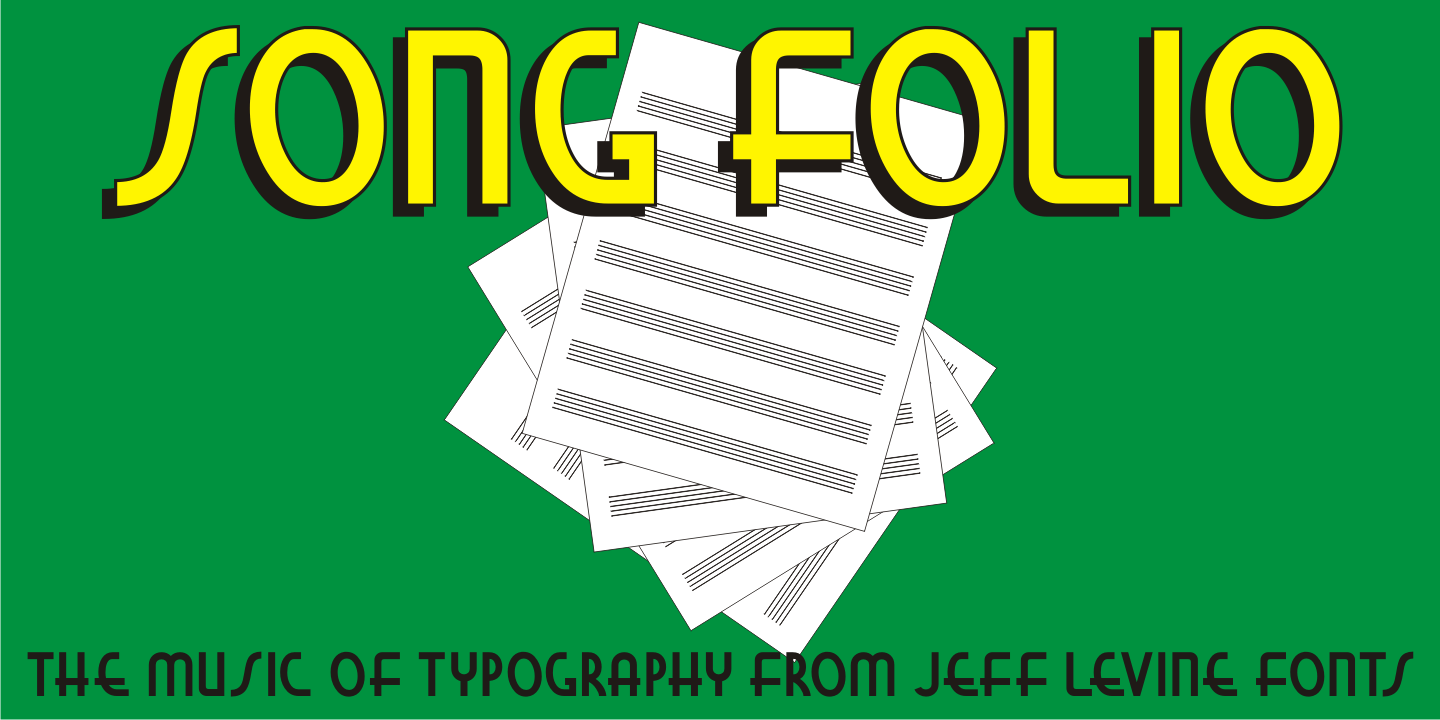
Song Folio
A 1940s Australian song folio featuring tunes performed by singer-actress Deanna Durbin had her name hand lettered in an interesting Art Deco style sans.
This became the basis for Song Folio JNL, capturing all the nuances of the original in digital form.